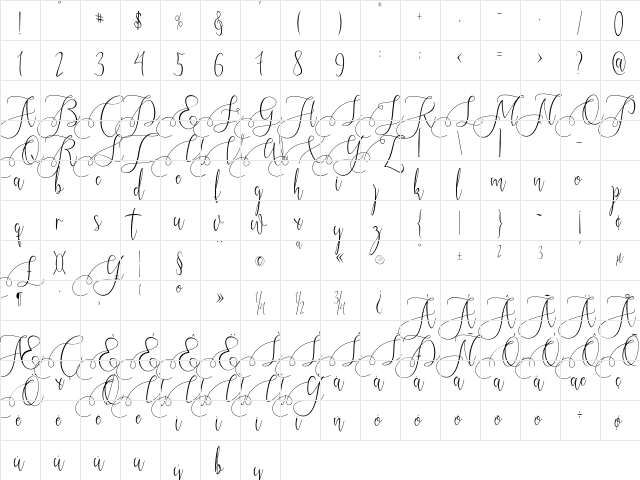
Kristallian Regular
Design Context for Kristallian Typeface
Kristallian is a composed and adaptable typeface that performs quietly and consistently across a wide range of design contexts.